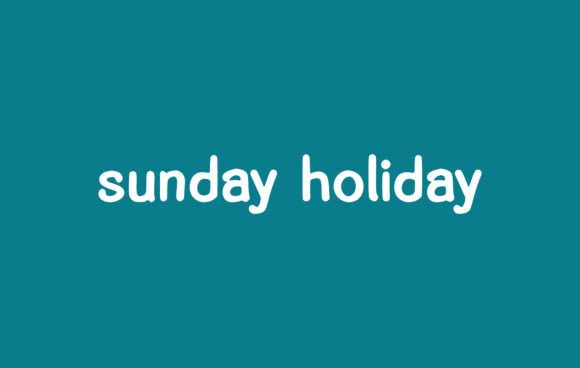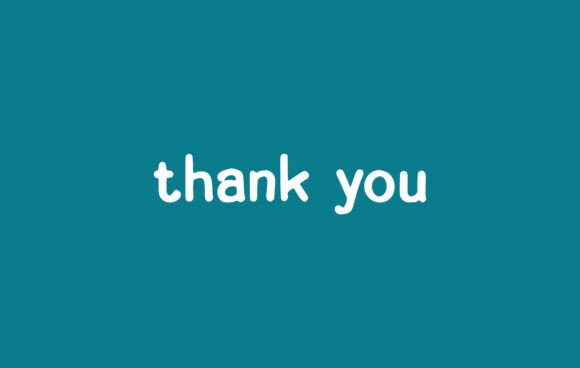
Introduction to Silly Scissors Font
Silly Scissors font is an authentic handwritten font with a romantic touch.
Key Features of Silly Scissors Font
Why Choose Silly Scissors Font?
Silly Scissors Font offers exceptional quality and versatility, making it a valuable addition to your design toolkit. Whether you’re creating for personal projects or commercial use, Silly Scissors Font delivers professional results.